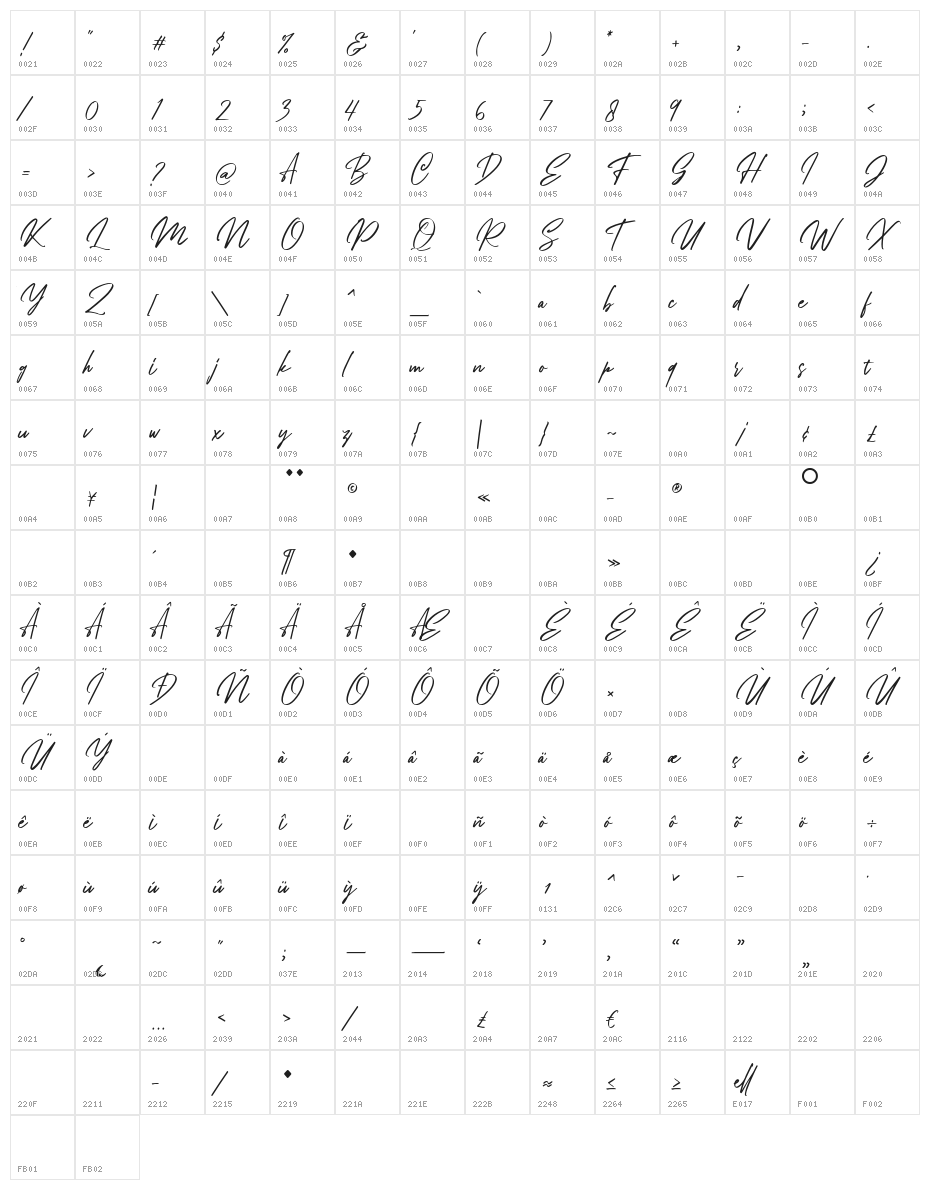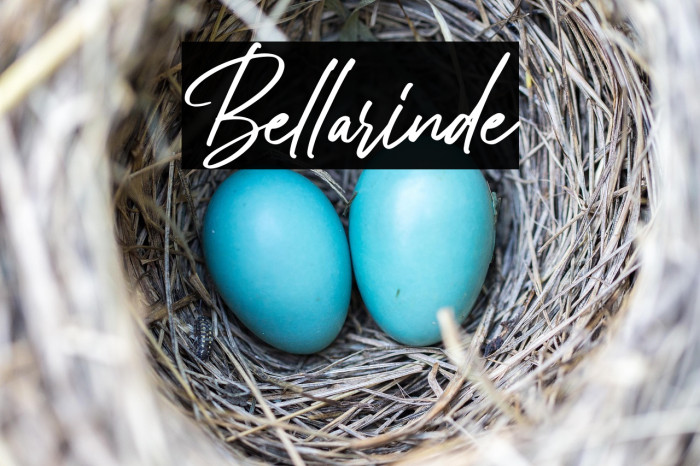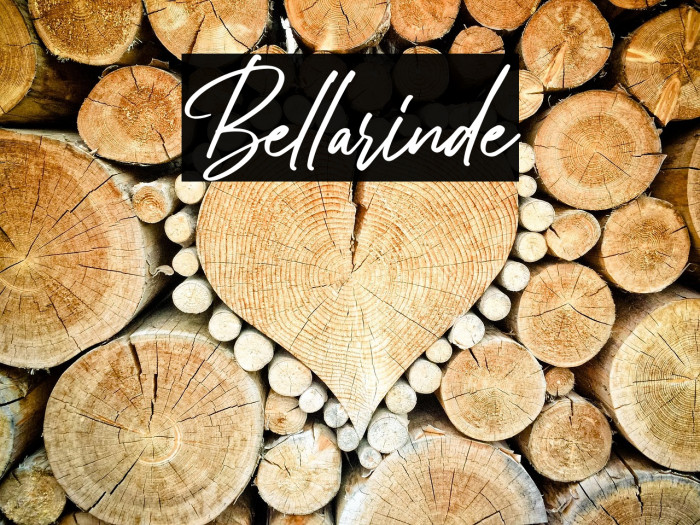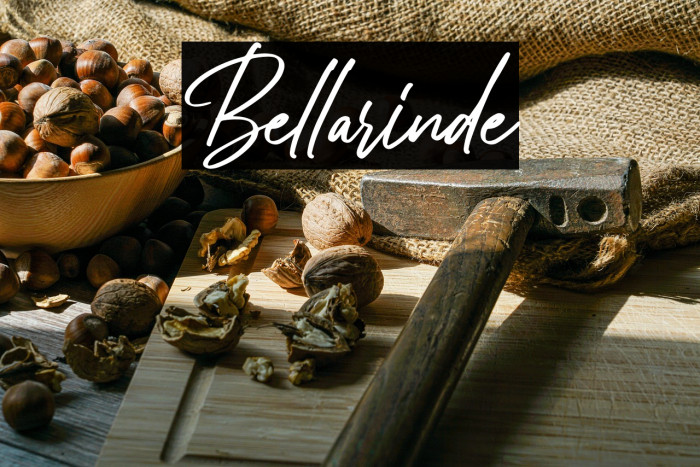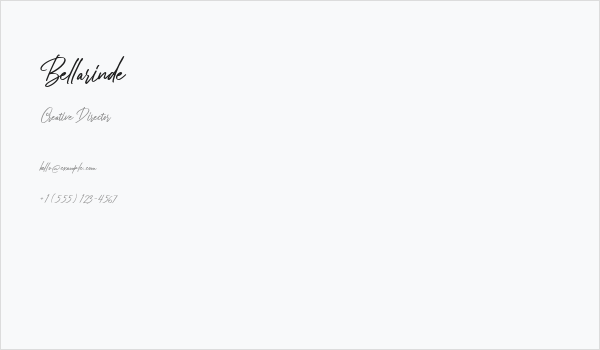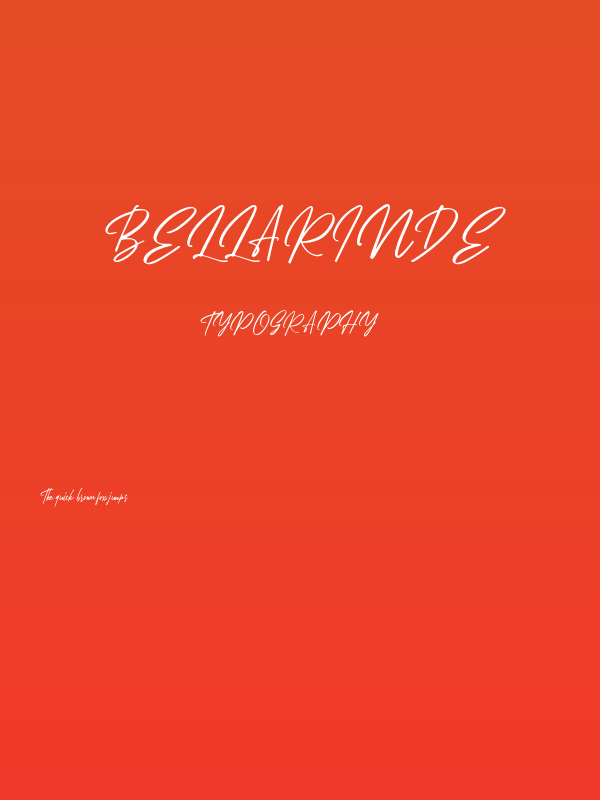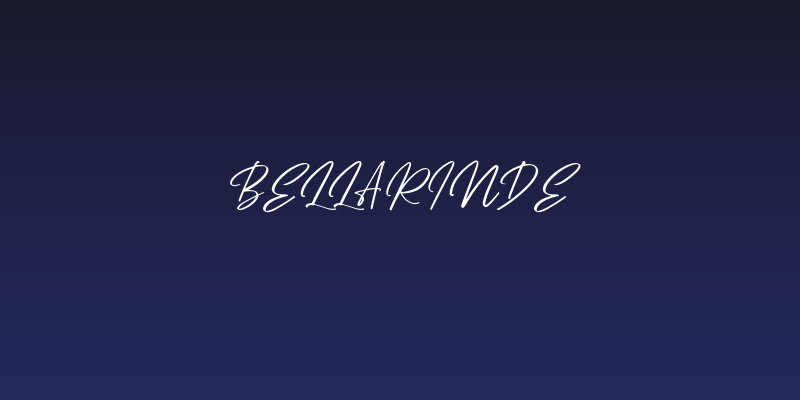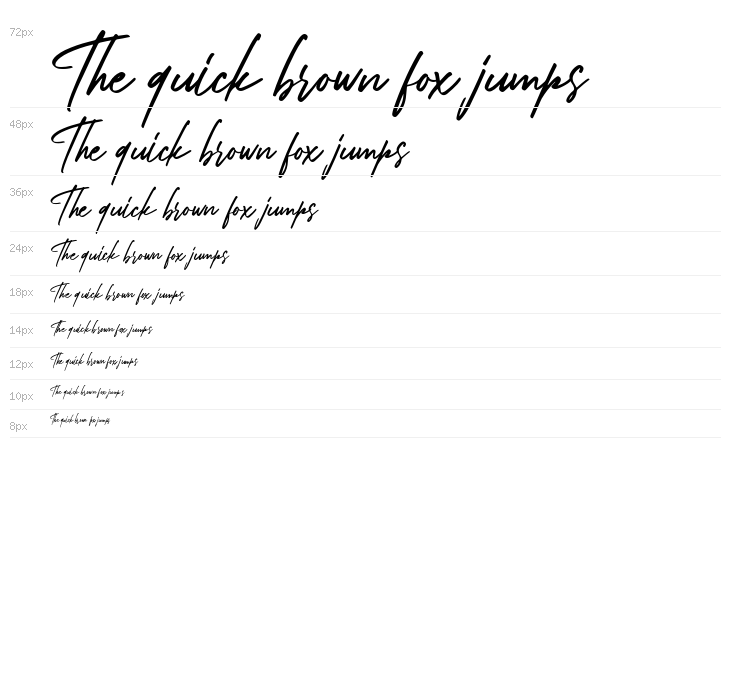
Bellarinde Font
Bellarinde Description
This font features a flowing, cursive style that exudes elegance and sophistication. The characters are connected in a fluid manner, reminiscent of traditional calligraphy, yet with a modern twist. The uppercase letters are tall and graceful, while the lowercase letters maintain a consistent flow, enhancing readability. The numerals are stylish and align well with the overall aesthetic, making them suitable for a variety of uses. Special characters are designed with the same attention to detail, ensuring they integrate seamlessly with the rest of the font. This font is ideal for projects that require a touch of class and personal flair.
| Proposed Projects | Wedding invitations, branding, elegant logos, personal stationery, and upscale packaging. |